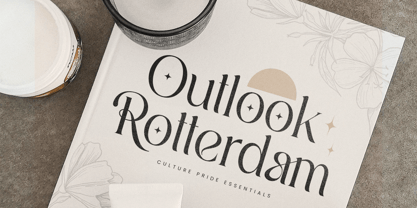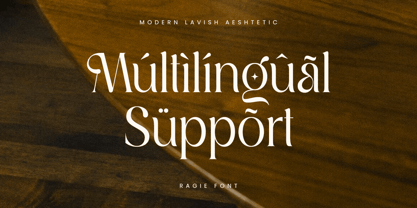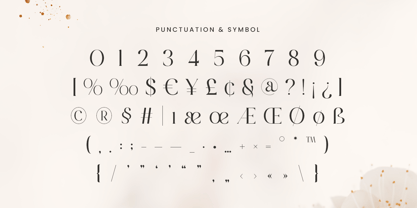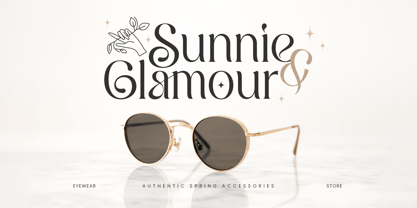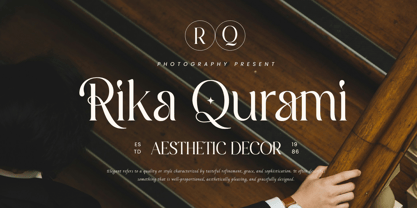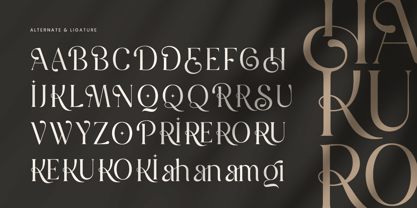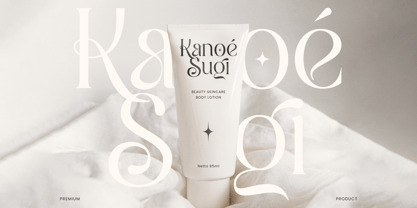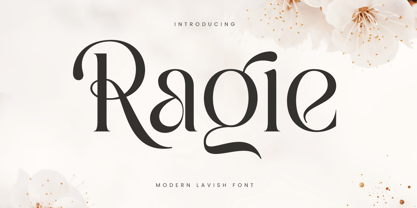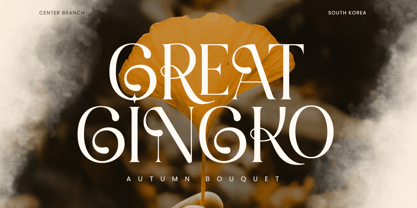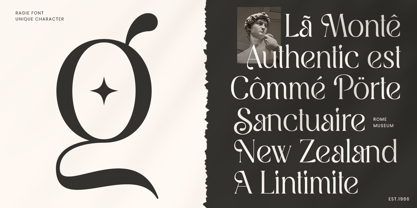
Ragie is a modern lavish font crafted to bring a touch of elegance and sophistication to any design. Its luxurious strokes and refined details make it a perfect choice for high-end branding, exclusive logos, and upscale editorial projects. The unique design elements of Ragie add an air of exclusivity, making it ideal for those who seek to set their projects apart. Whether designing fashion lookbooks, product packaging, or upscale marketing materials, Ragie exudes confidence and style. The font's meticulously crafted characters are designed to create a sense of balance and flow, ensuring readability while maintaining its opulent feel. Add Ragie to your font library and watch your projects transform into stunning works of art. From digital platforms to print, this typeface complements a wide range of creative applications, making it a versatile addition to any designer's toolkit. Ragie Modern Lavish Font Features: Elegant Ligature & Alternative Characters Ready Punctuation, Number, and Symbol Uppercase and Lowercase Opentype Features Multilingual Characters available for: Afrikaans, Albanian, Asu, Basque, Bemba, Bena, Breton, Chiga, Cornish, Dutch, English, Estonian, Filipino, Finnish, Friulian, Galician, German, Gusii, Indonesian, Irish, Italian, Kabuverdianu, Kalenjin, Kinyarwanda, Luo, Luxembourgish, Luyia, Machame, Makhuwa-Meetto, Makonde, Malagasy, Manx, Morisyen, North Ndebele, Nyankole, Oromo, Portuguese, Quechua, Romansh, Rombo, Rundi, Rwa, Samburu, Sango, Sangu, Scottish Gaelic, Sena, Shambala, Shona, Soga, Somali, Spanish, Swahili, Swedish, Swiss. Thank you and best of luck with your designs!
Ragie